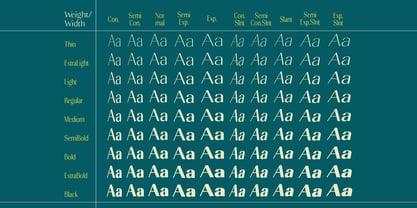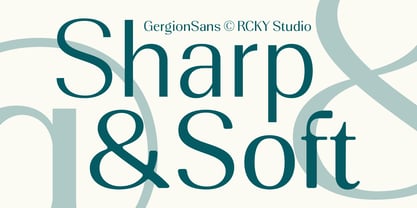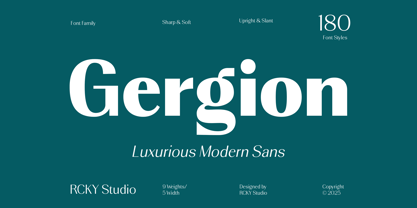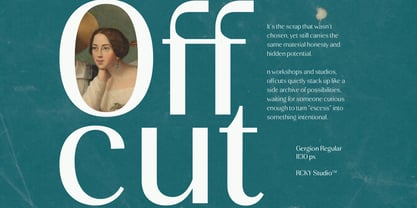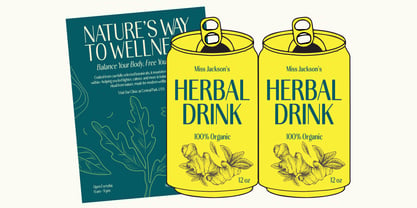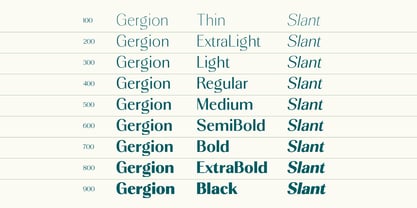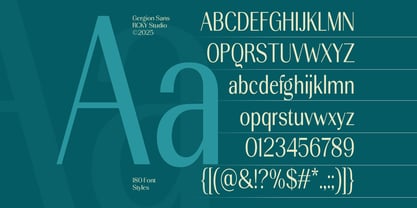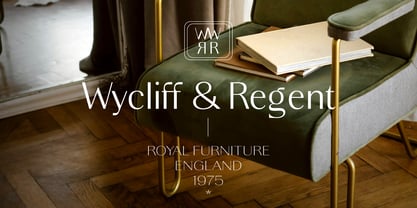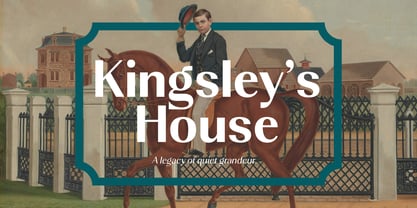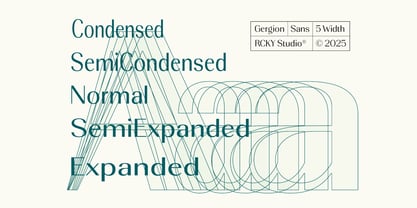
Gergion
by RCKY Studio
The Gergion Font Family was designed by Rizki Agam Fonna and published by RCKY Studio. Gergion contains 181 styles and family package options. More about this family
Gergion is a modern variable sans-serif typeface that blends luxury, clarity, and contemporary elegance into one highly versatile font family. Designed with a refined balance of sharp details and soft curves, Gergion delivers a confident yet graceful character, making it ideal for premium and modern design applications. Featuring 9 weights and 5 widths with smooth variable axes, Gergion offers up to 180 styles, including upright and slanted forms. This extensive flexibility allows designers to fine-tune typography with precision—from clean, minimal layouts to bold, expressive statements. Its well-balanced proportions, high readability, and consistent rhythm perform beautifully across both large display sizes and smaller text settings. Perfect for: branding and logos, editorial design, UI/UX, web and app interfaces, advertising, packaging, and high-end display typography. Key features: Fully variable font for maximum flexibility Luxurious modern sans-serif character Balanced sharp and soft forms for a premium feel Comprehensive family suitable for display and text use Gergion empowers designers with creative freedom and typographic consistency—one sophisticated font family for modern visual communication.
Designers: Rizki Agam Fonna
Foundry: RCKY Studio